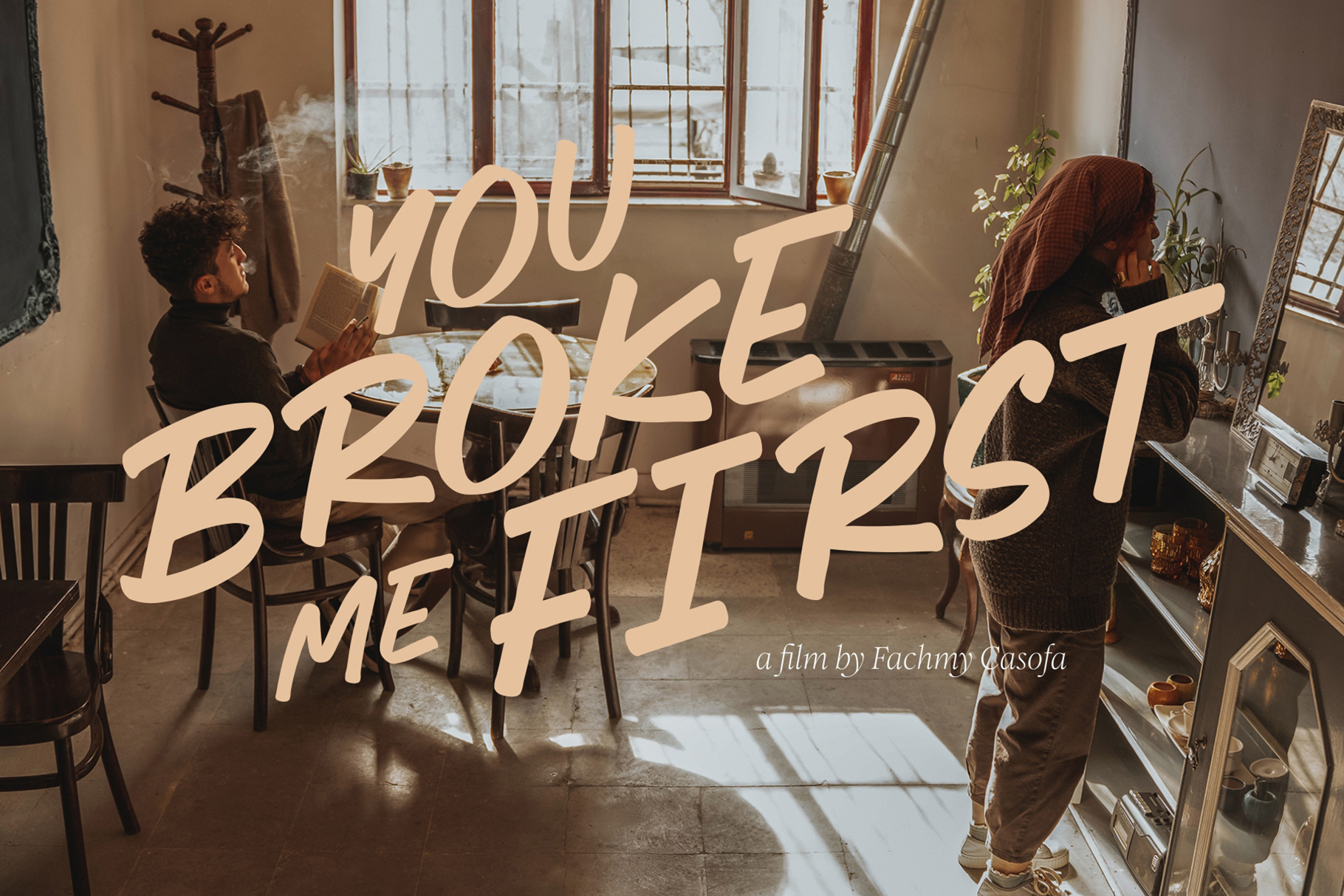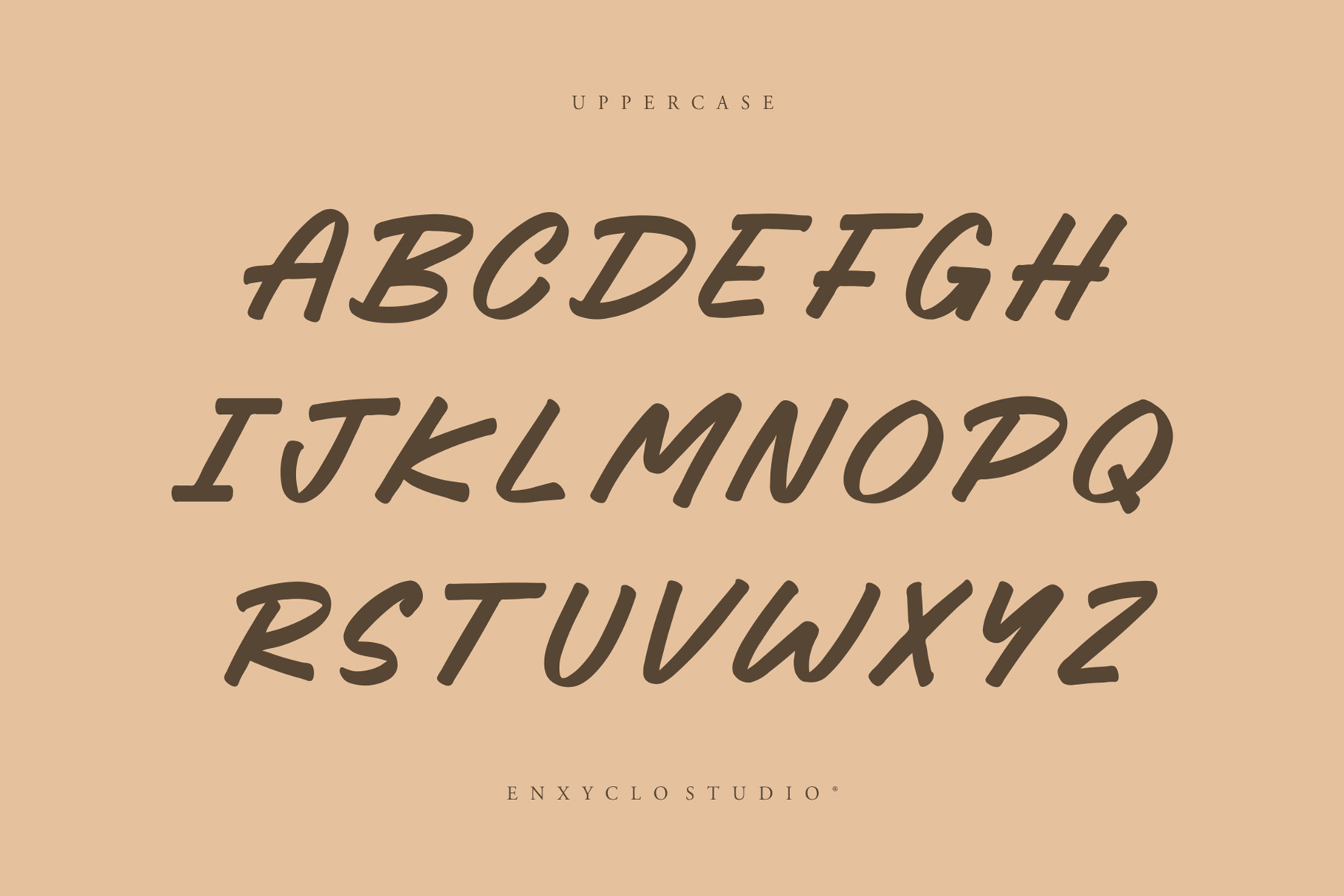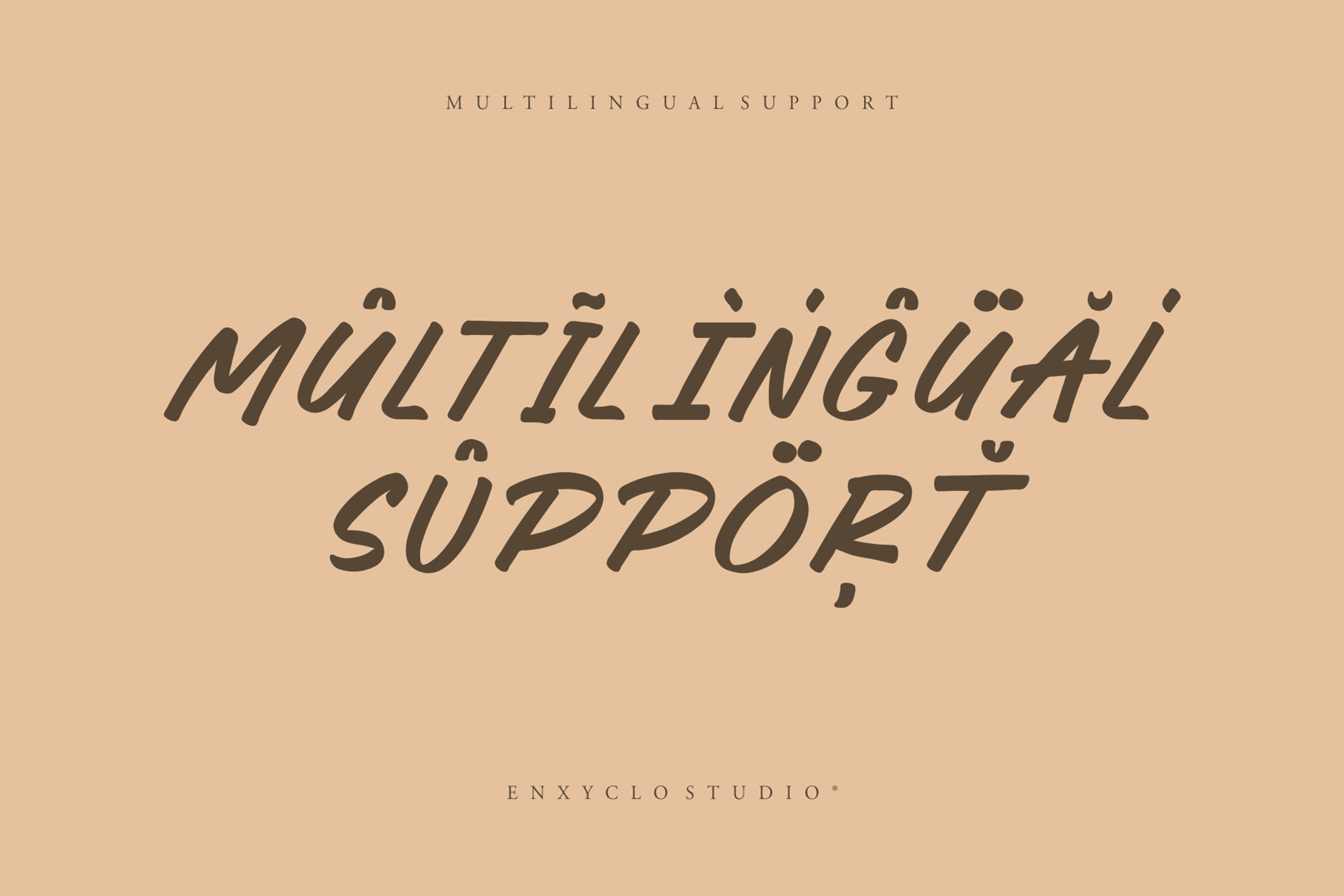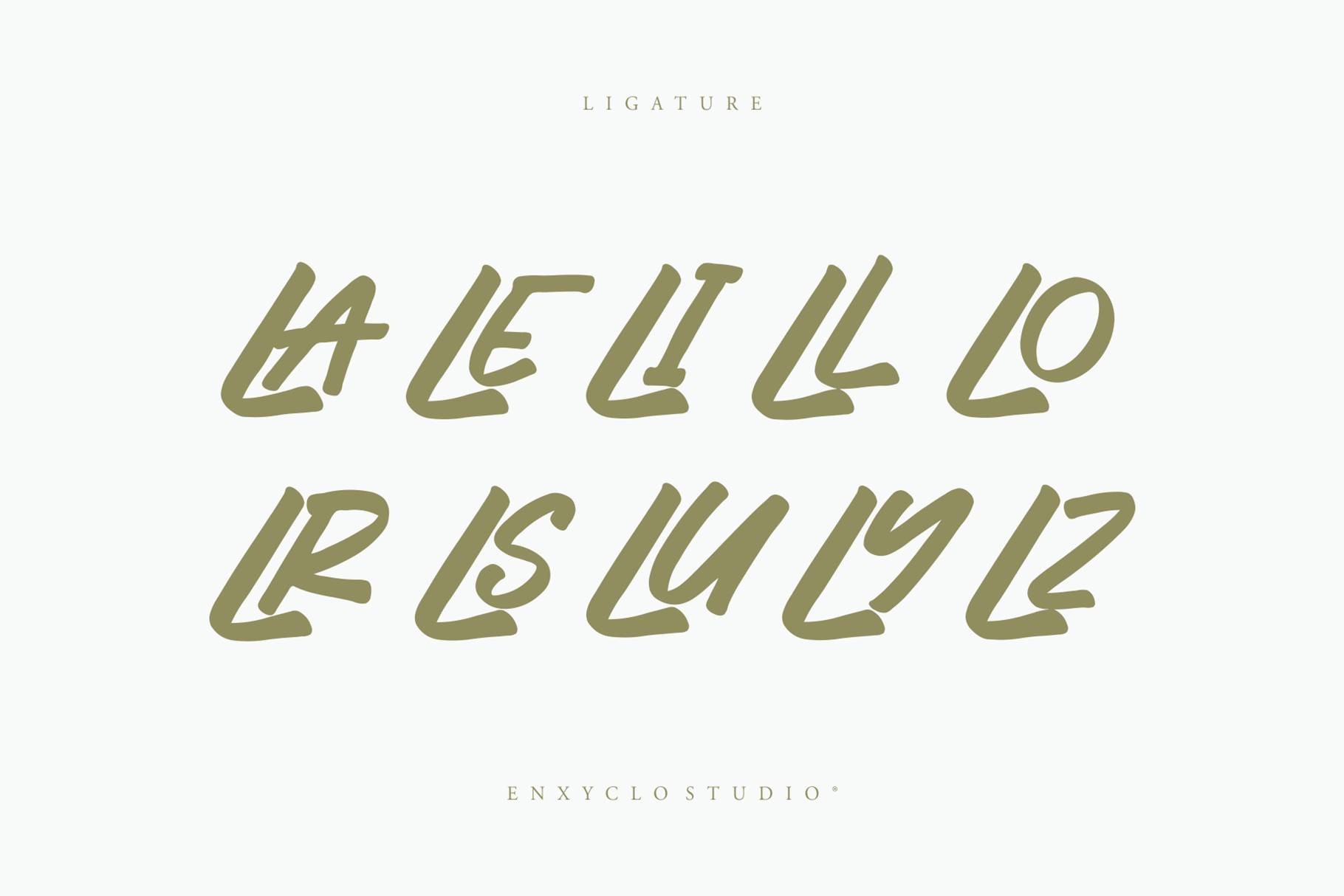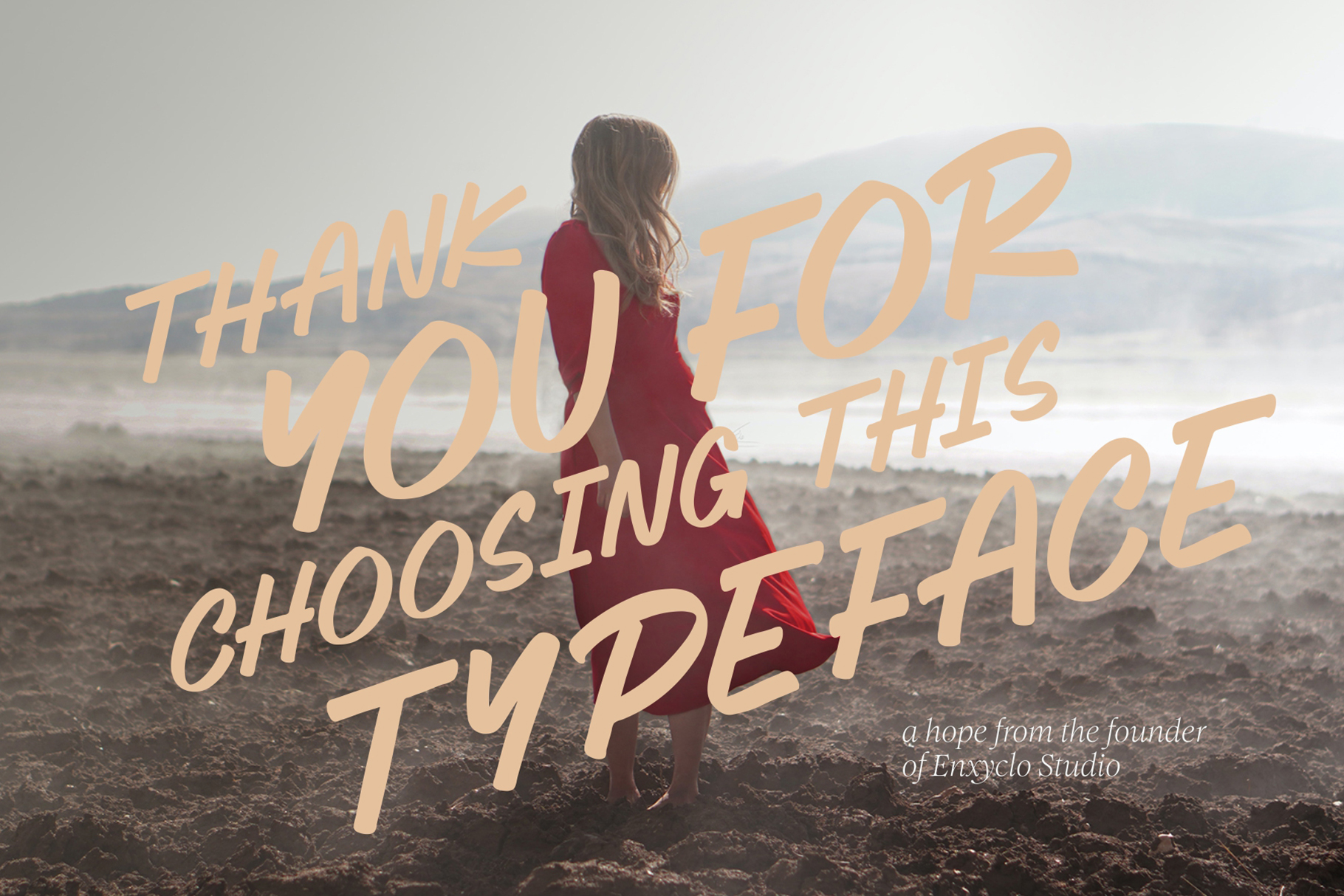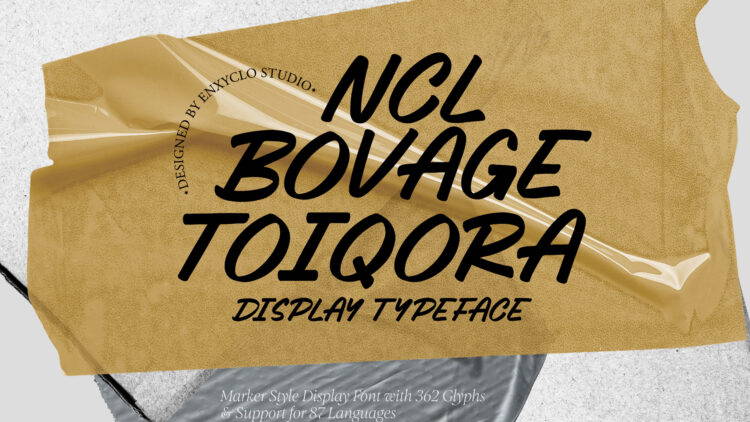
NCL BOVAGE TOIQORA is a marker style display font. Masterfully designed to become a true favorite, this font has the potential to bring each of your creative ideas to the highest level! It was purposely crafted to be used in large point sizes, although it doesn’t lose its magic in small point sizes. It is perfect for wedding, headline, billboard, magazines, website, titles, poster, branding, and logos. No matter the topic, this font will be an incredible asset to your fonts’ library, as it has the potential to elevate any creation. With this beautiful font, absolutely you can make your project stand out from the rest.
Contains 362 Glyphs
Uppercase & Lowercase
Numeral, Punctuation & Symbols
10 Ligature
- Multilingual Support